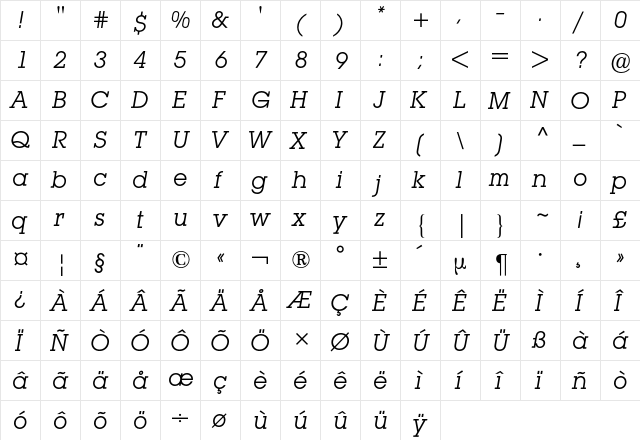
Lubalin BQ Regular
Design Context for Lubalin BQ Typeface
Lubalin BQ is a composed and adaptable typeface that performs quietly and consistently across a wide range of design contexts.
Pro Tip: Use Lubalin BQ in both headline and body roles to test its range before committing to a single application.